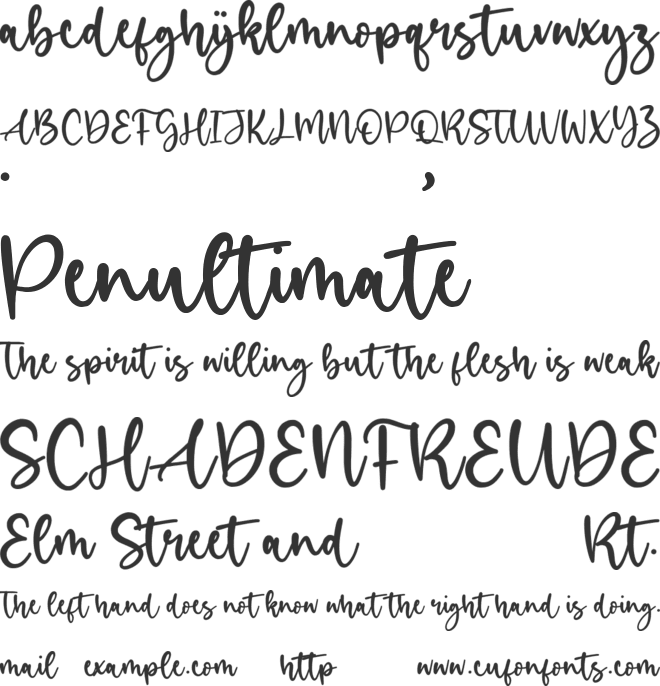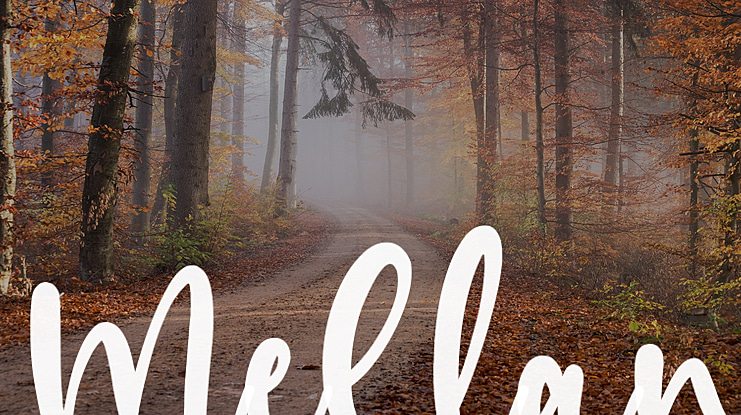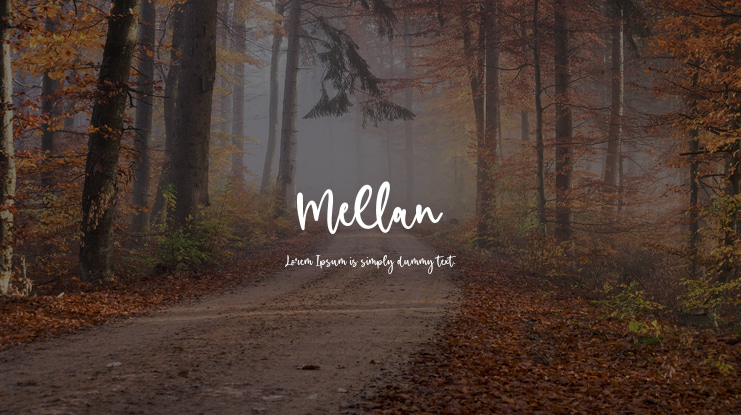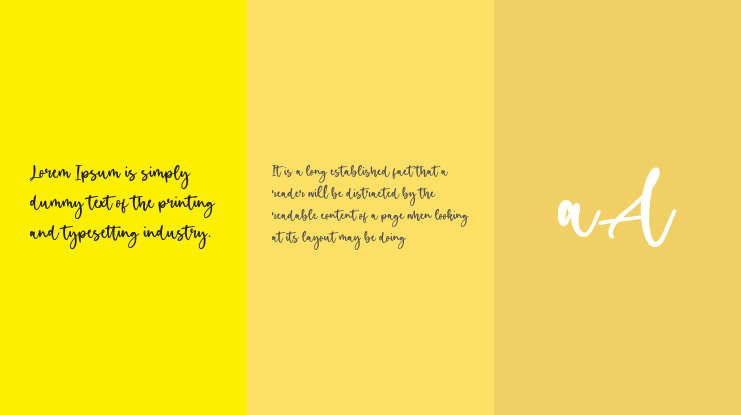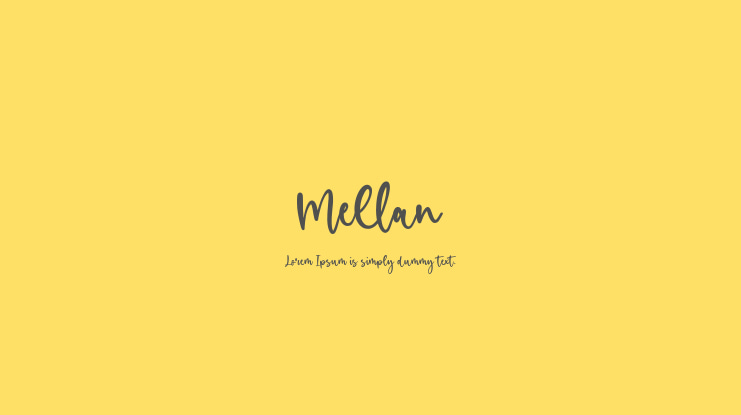
Mellan Font
Mellan Script Font is a delicate, elegant, and flowing handwritten font. It has beautiful and well-balanced characters and as a result, it matches a wide pool of designs.
– Uppercase, Lowercase, Numeral & Punctuation
– Alternate Letters, Ligature & Swash/Tail